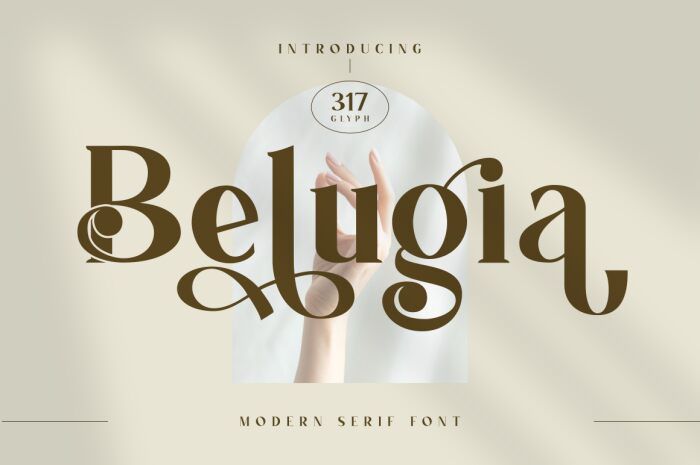
Belugia font by Rissyletter Studio is a captivating serif that commands attention with its elegant curves and distinctive style. As a free font available for download, Belugia offers designers a unique blend of traditional serif elements with contemporary flair. Its graceful serifs and bold presence make it ideal for projects requiring sophistication and clarity.
Whether crafting invitations that demand elegance or brand logos that stand out, Belugia’s aesthetic appeal ensures any design remains memorable. This versatile font seamlessly adapts to both digital and print media, making it perfect for designers seeking distinctive typography without compromising on readability. Download the Belugia font today to enhance your creative toolkit with this exceptional free option.
Belugia
Rissyletter Studio
Nur Rohman Rizki